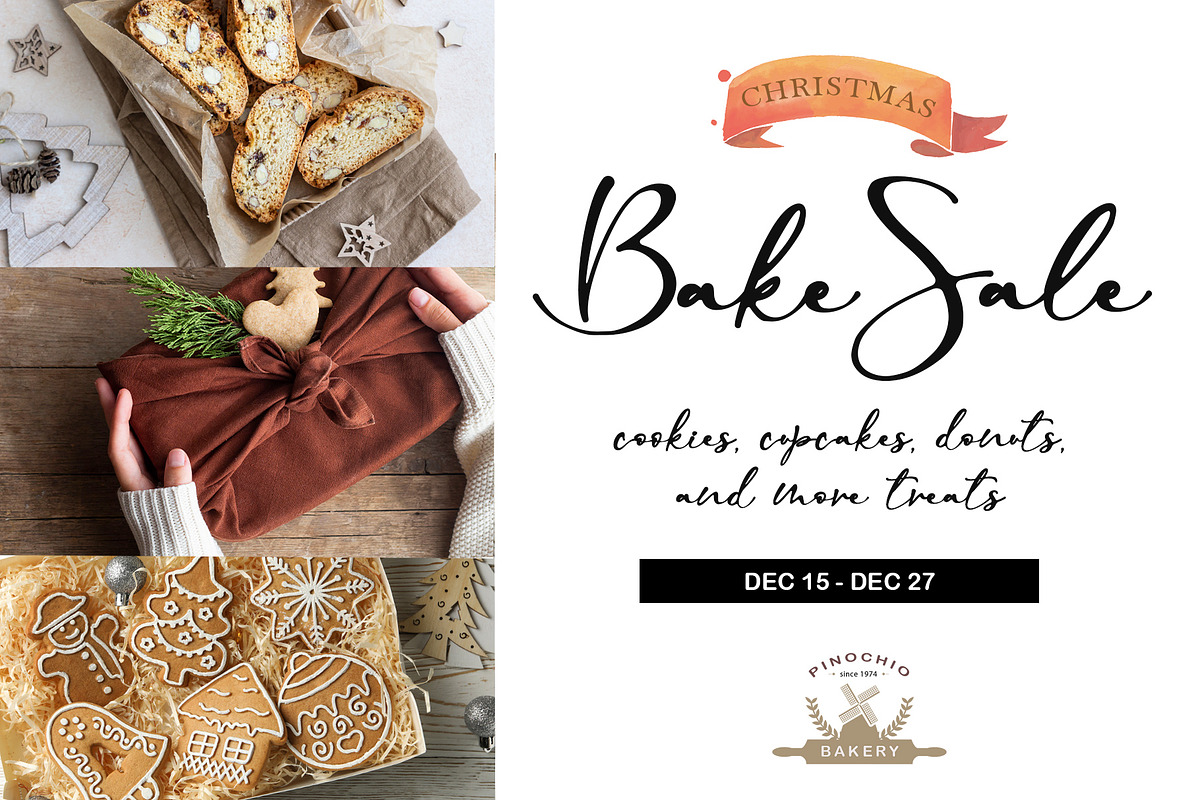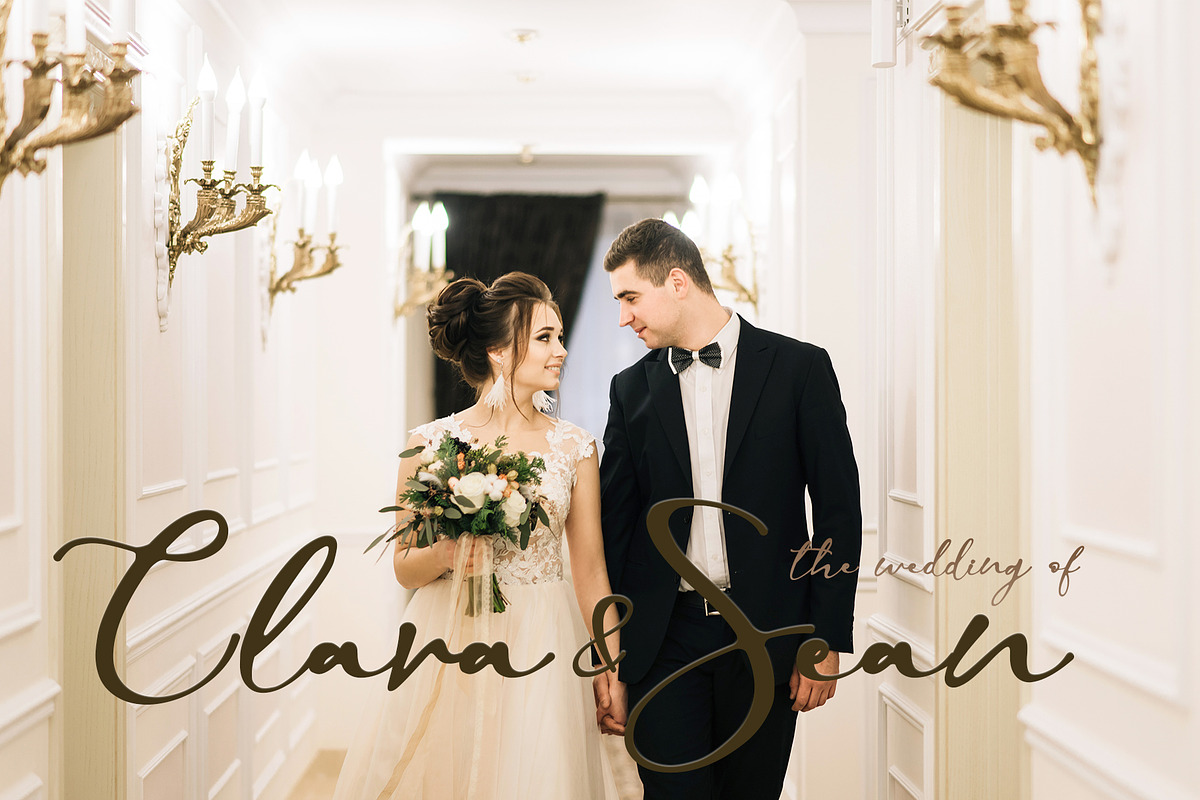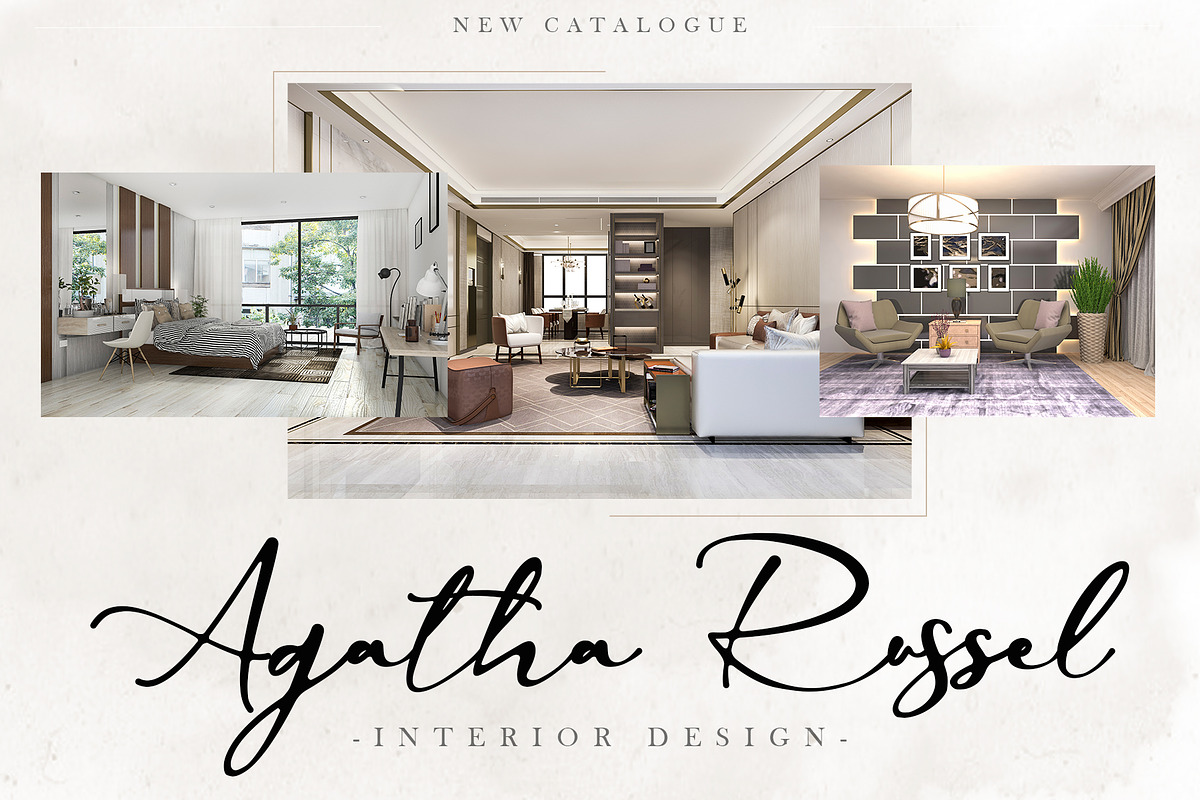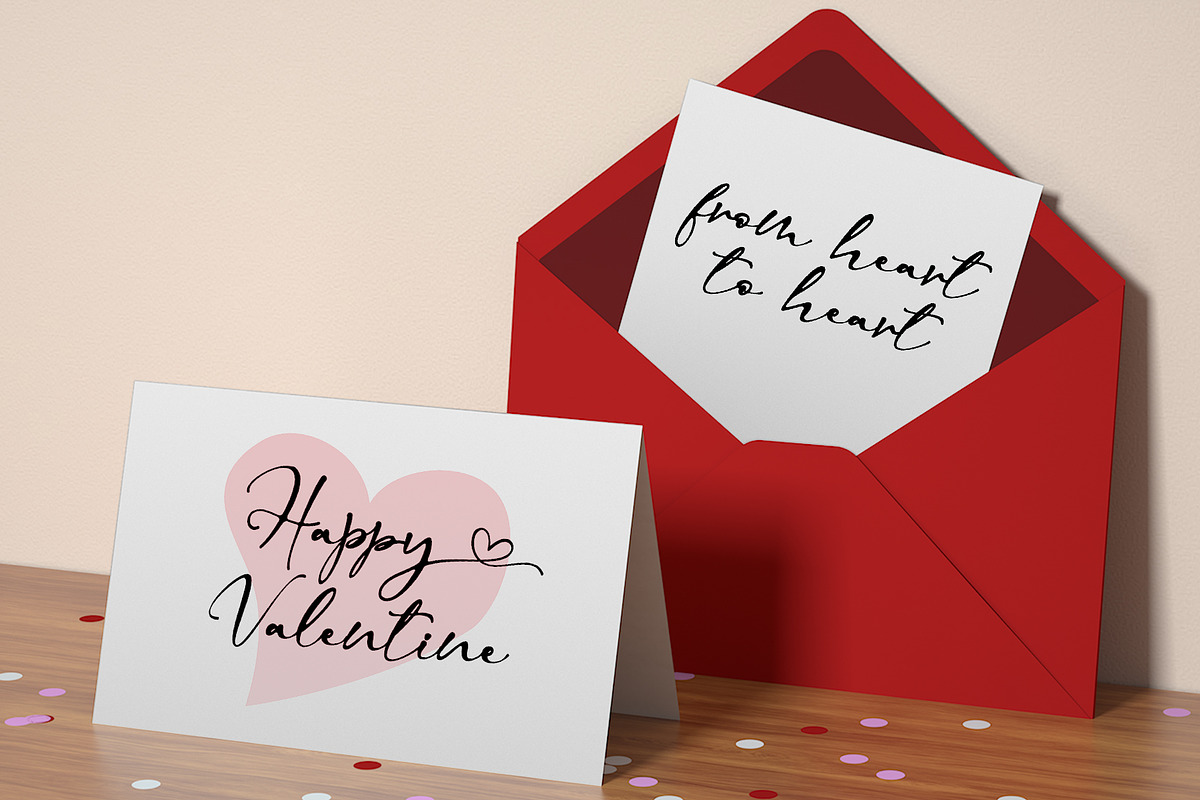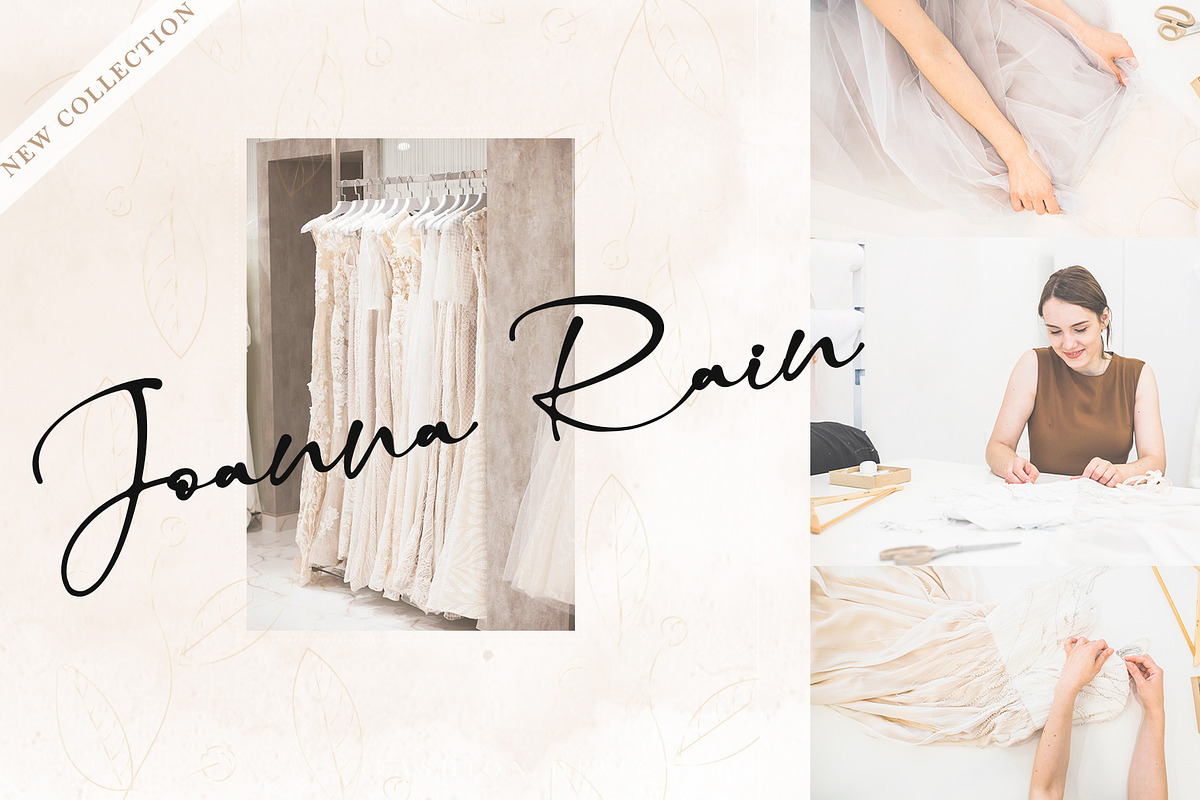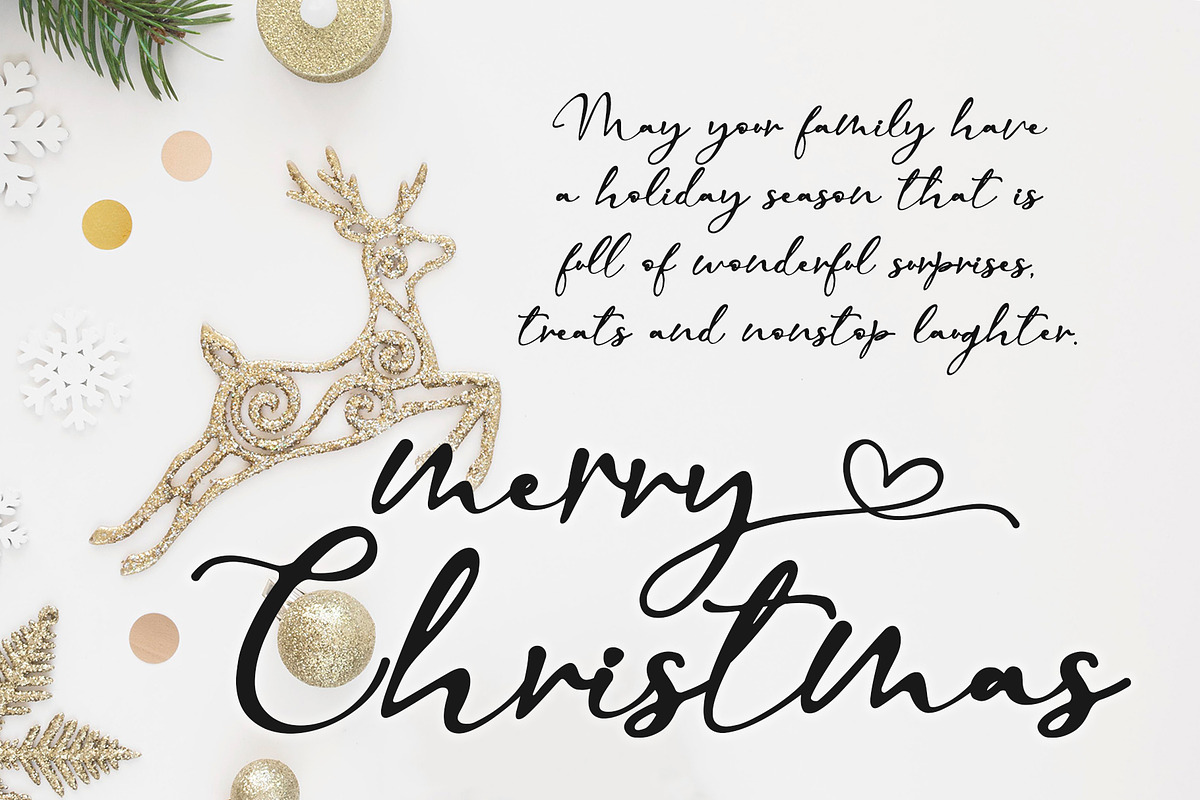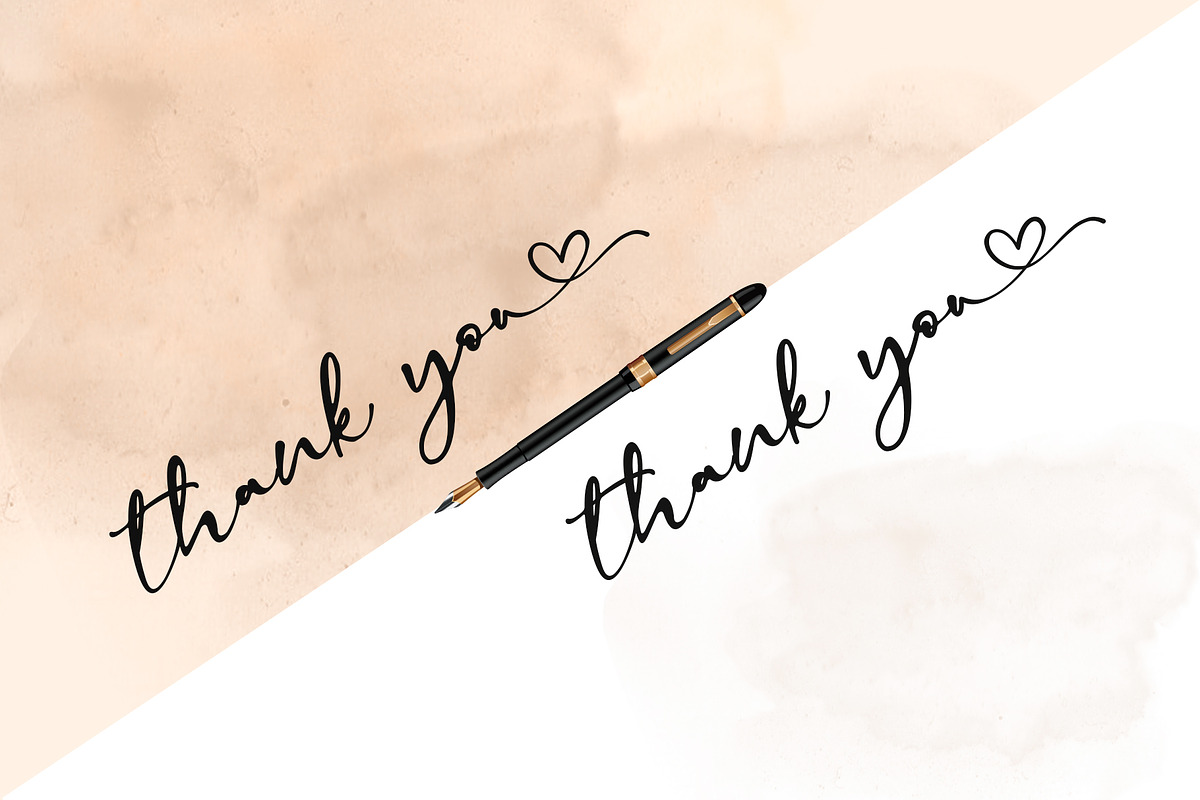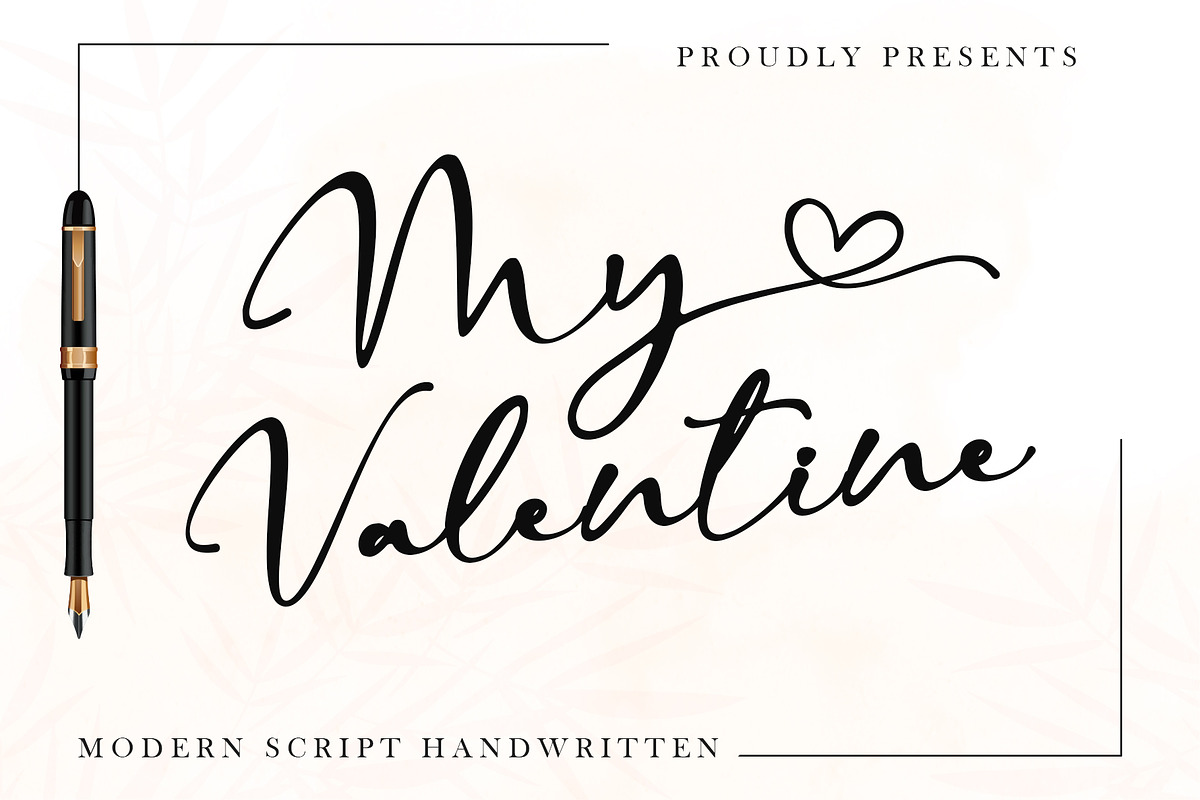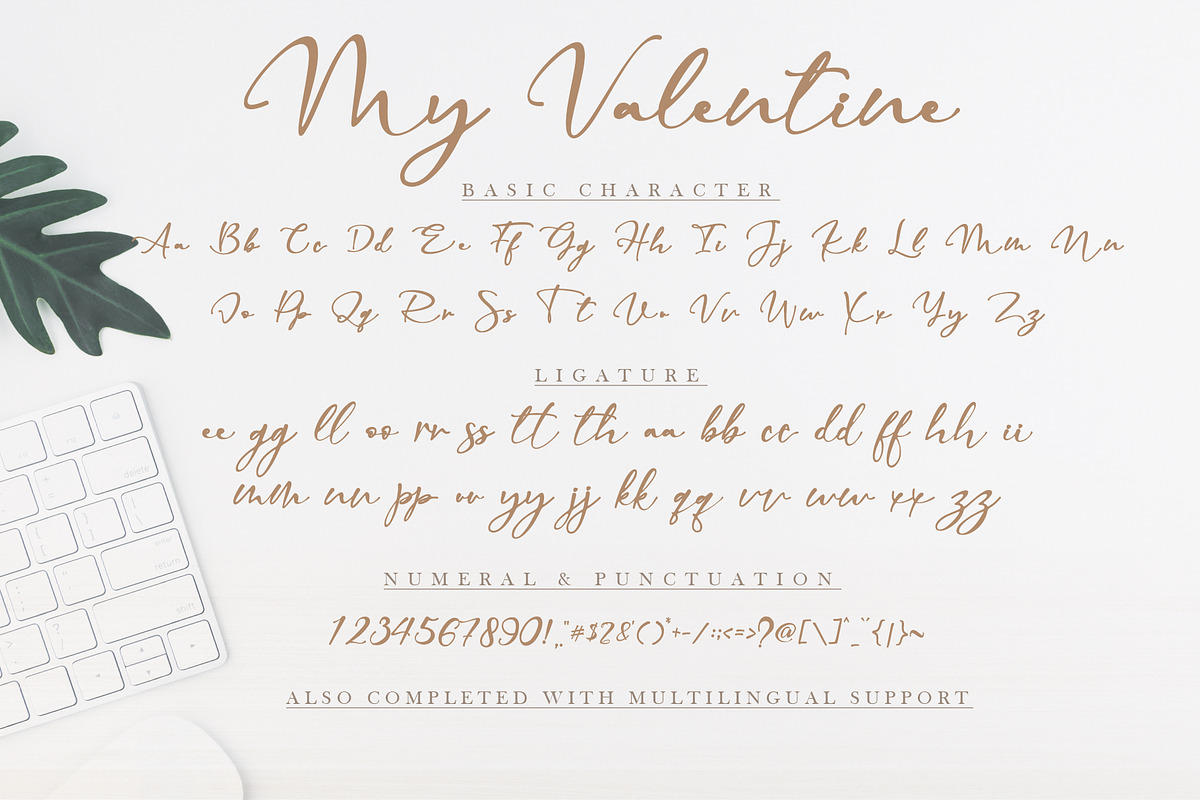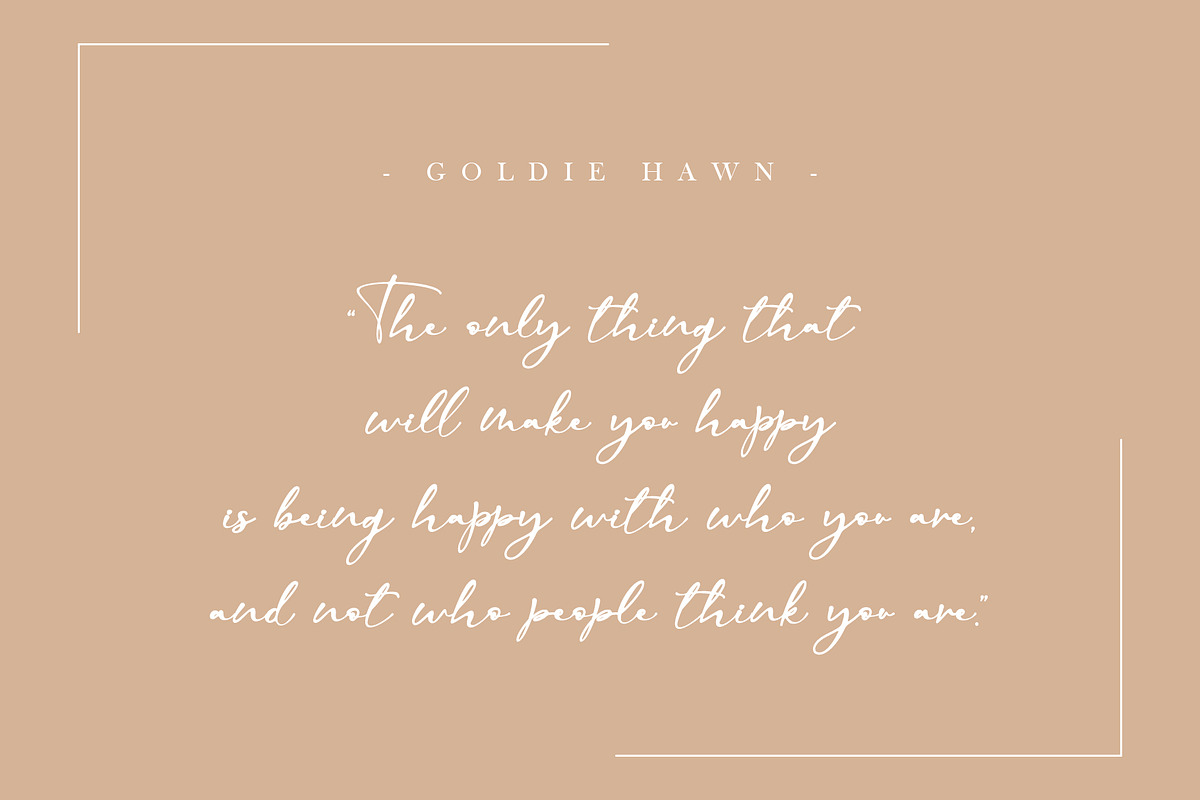
My Valentine
My Valentine is a unique blend of classic and modern fonts. It has a perfect style with a romantic touch. It’s perfect for wedding invites, events, invitations, escort cards, table numbers, header menus, displays, logos, slider blogs, custom addresses, stamps, packaging, greeting cards, and much more! This font is PUA encoded which means you can access all of the glyphs and swashes with ease!
- Style in this font includes: Regular & Italic
- Support multilingual; ä ö ü Ä Ö Ü ß ¿ ¡